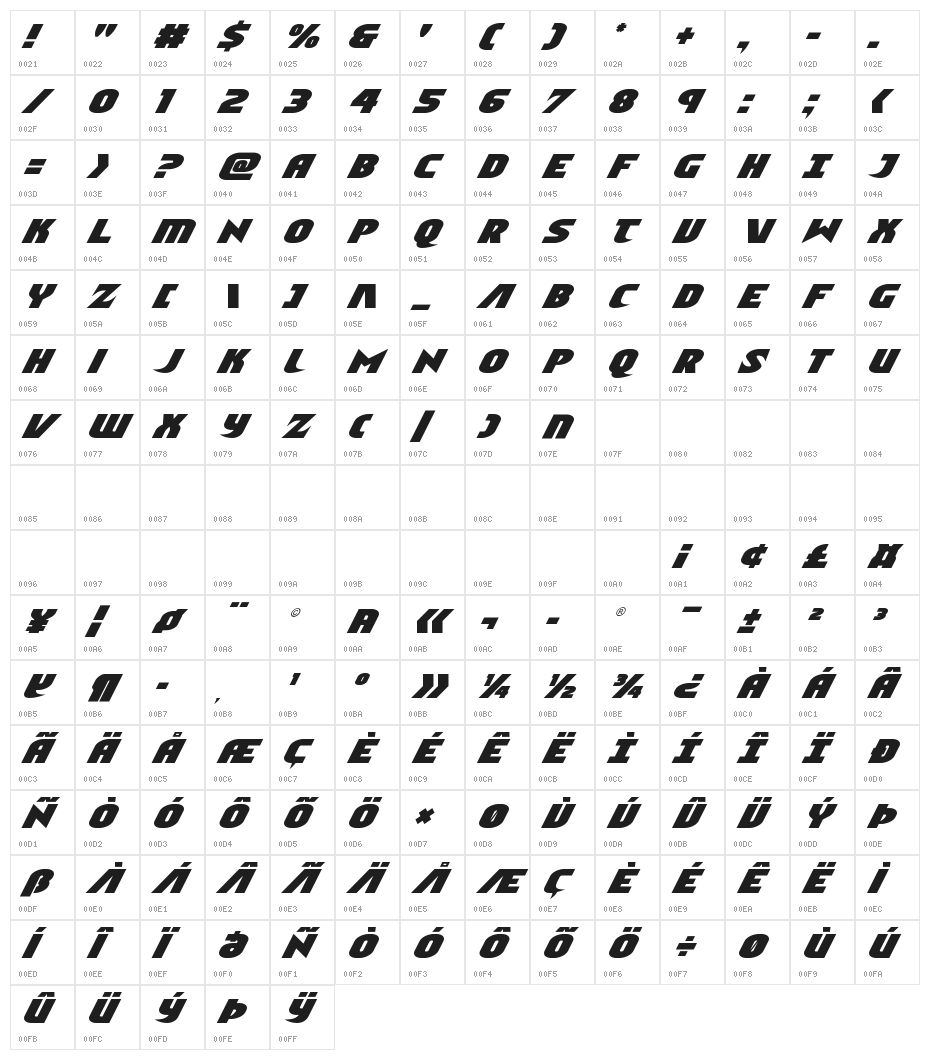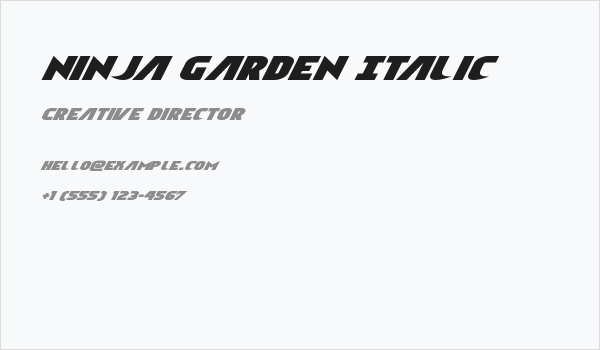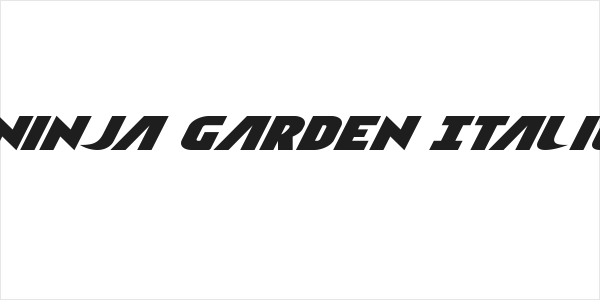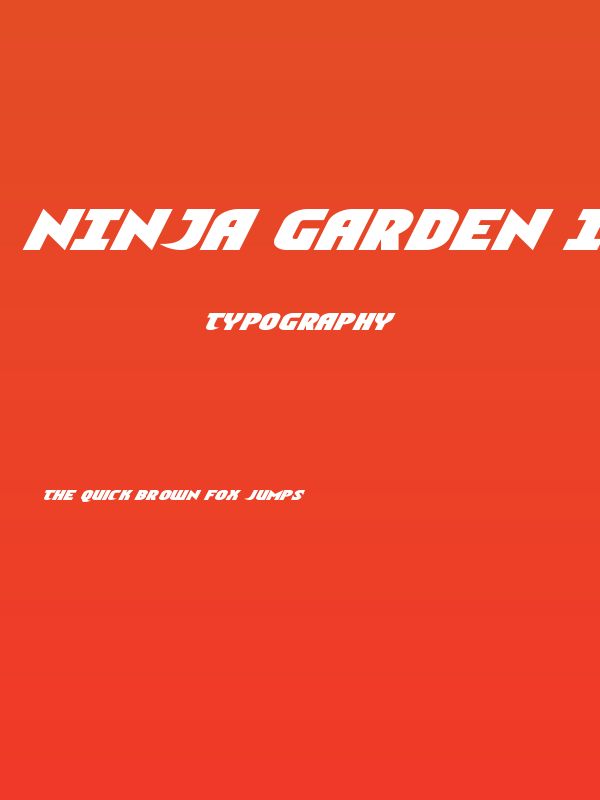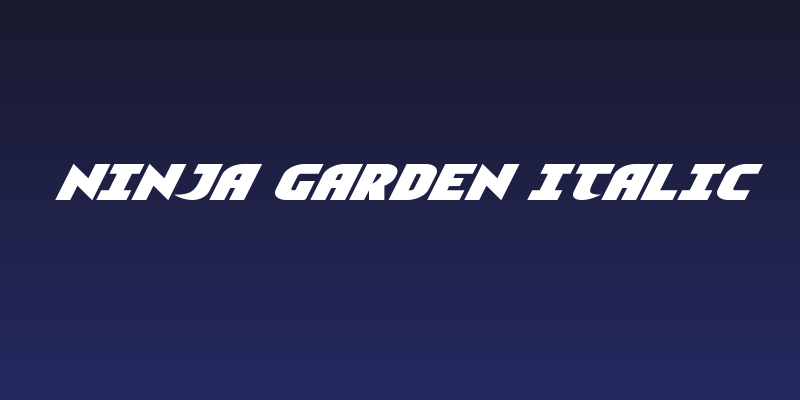
Ninja Garden Italic Font
Ninja Garden Italic Description
This font features a bold and dynamic style with a strong italic slant, giving it a sense of motion and energy. The characters are wide and robust, with sharp angles and a slightly condensed form that enhances its bold appearance. The uppercase letters are particularly striking, with a consistent stroke width that maintains readability while adding a dramatic flair. The numbers and special characters follow the same design principles, ensuring a cohesive look across all text elements. This font is ideal for projects that require a strong visual impact and a modern, edgy aesthetic.
| Proposed Projects | Ideal for sports branding, action movie posters, video game titles, and dynamic advertising campaigns. |